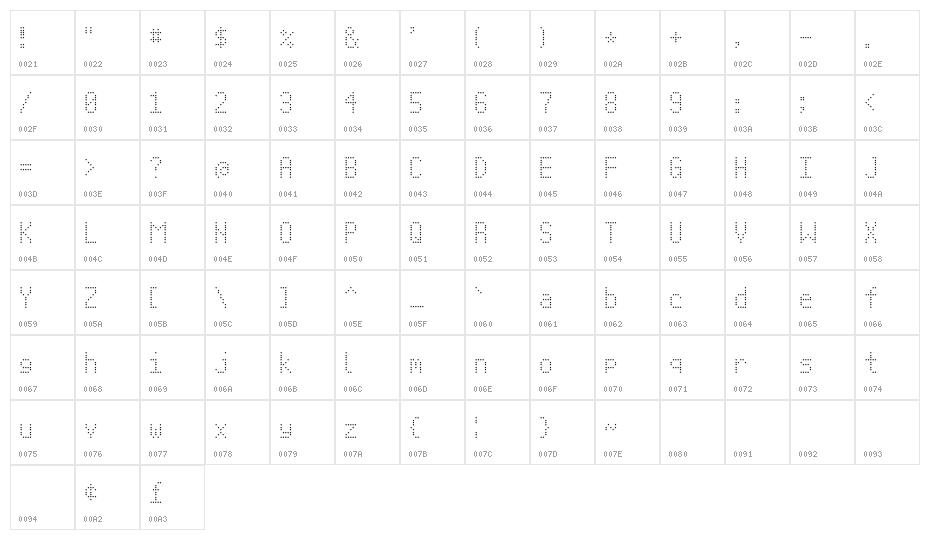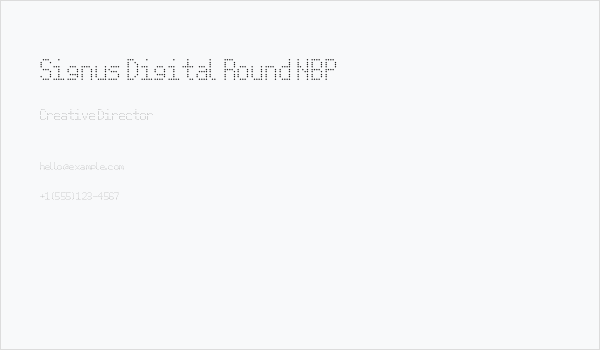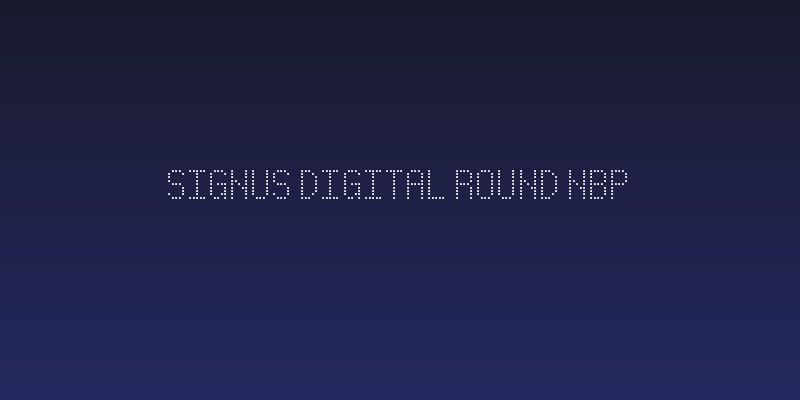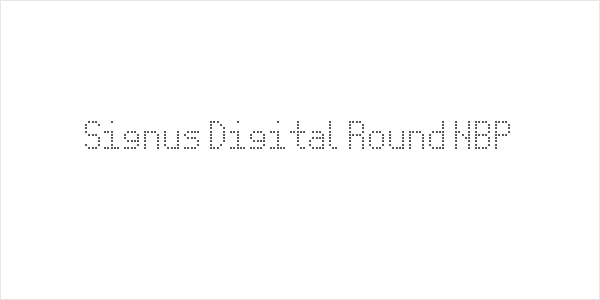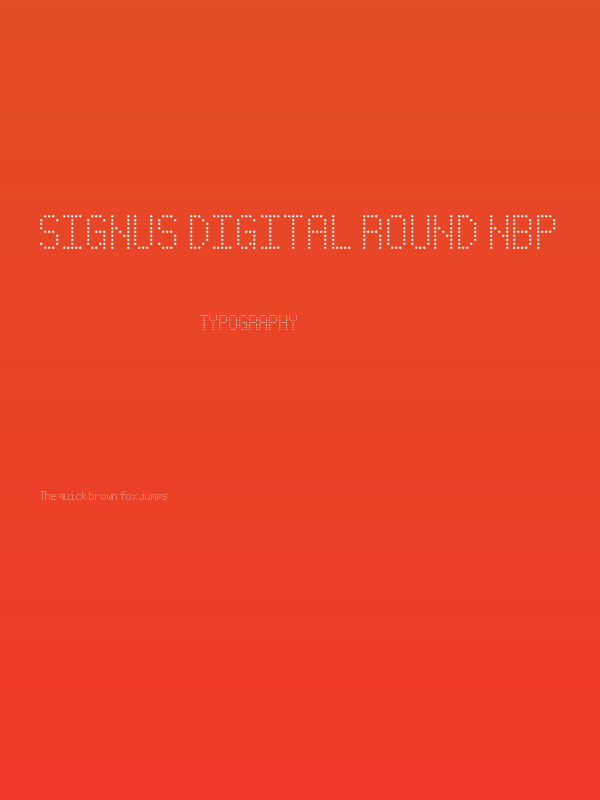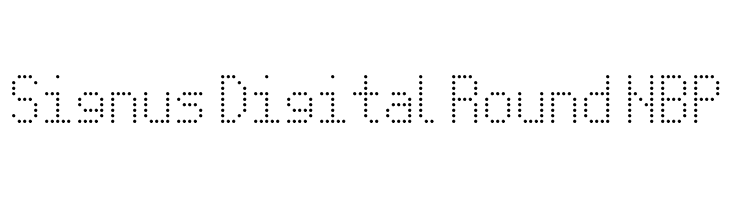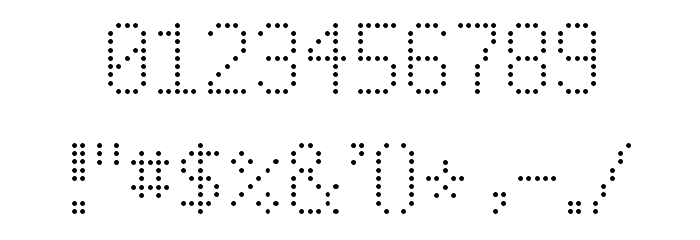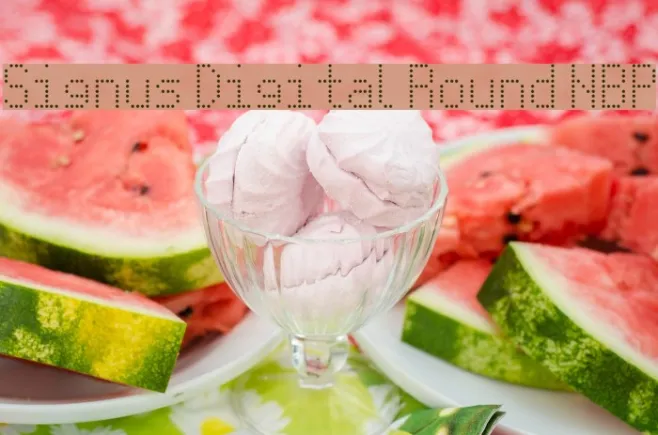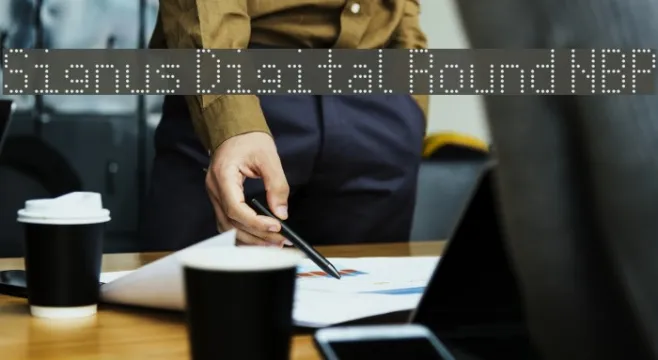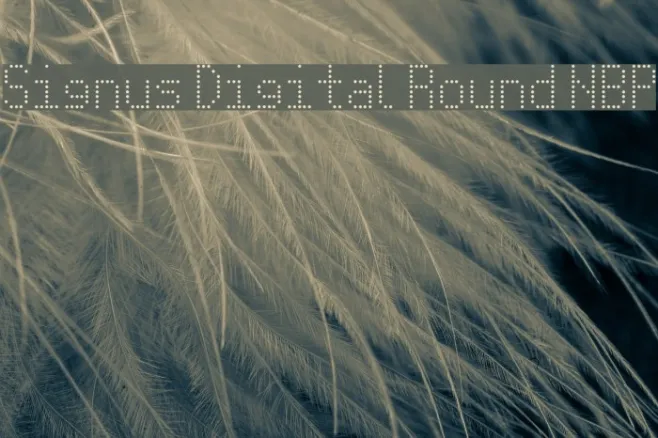
Signus Digital Round NBP Font
Signus Digital Round NBP Description
This font features a unique digital dot matrix style, reminiscent of old digital displays and LED screens. Each character is constructed from a series of evenly spaced dots, creating a modern and technological aesthetic. The uniformity of the dots gives it a clean and precise look, making it ideal for digital-themed projects. The uppercase and lowercase letters, as well as numbers and special characters, maintain consistent spacing and alignment, ensuring readability and a cohesive appearance. This font's distinct style is perfect for projects that require a futuristic or retro digital vibe.
| Use Case | Headlines, Digital displays, Tech-themed projects |
| Proposed Projects | Ideal for digital displays, tech-themed designs, retro gaming graphics, and futuristic branding. |